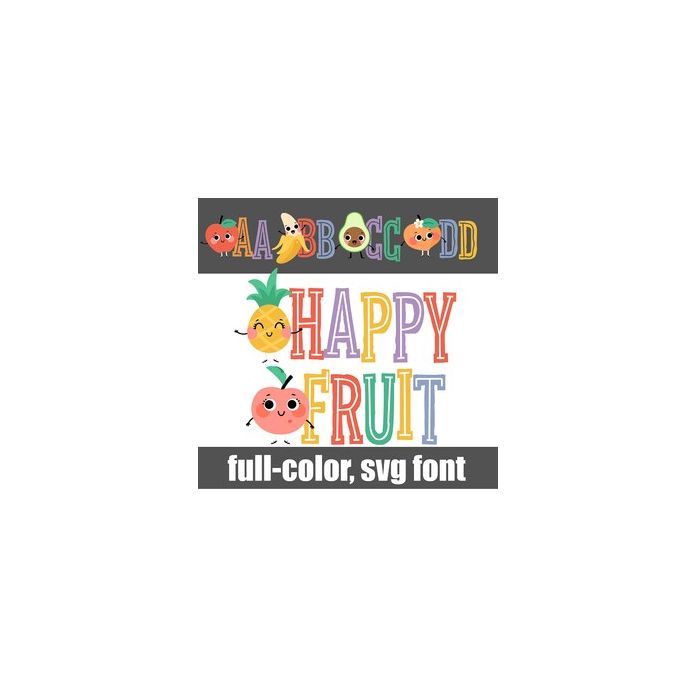
This full-color font features a number of different fruits on uppercase serif lettering. The lowercase is without fruit. There is an alt case w/ additional rainbow colors you can access through your system or Silhouette's glyph map.